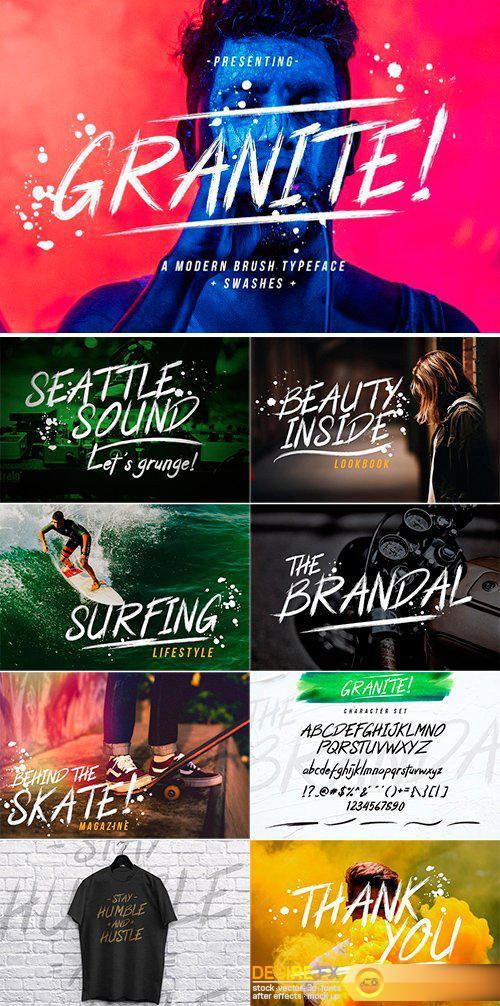
CM – Granite Brush Font 2515265
Granite is handmade authentic font brush with stylish street lifestyle and looks like extreme sport style usage. Best match for logos, header, titles, prints, apparel & other creative process possibilities.